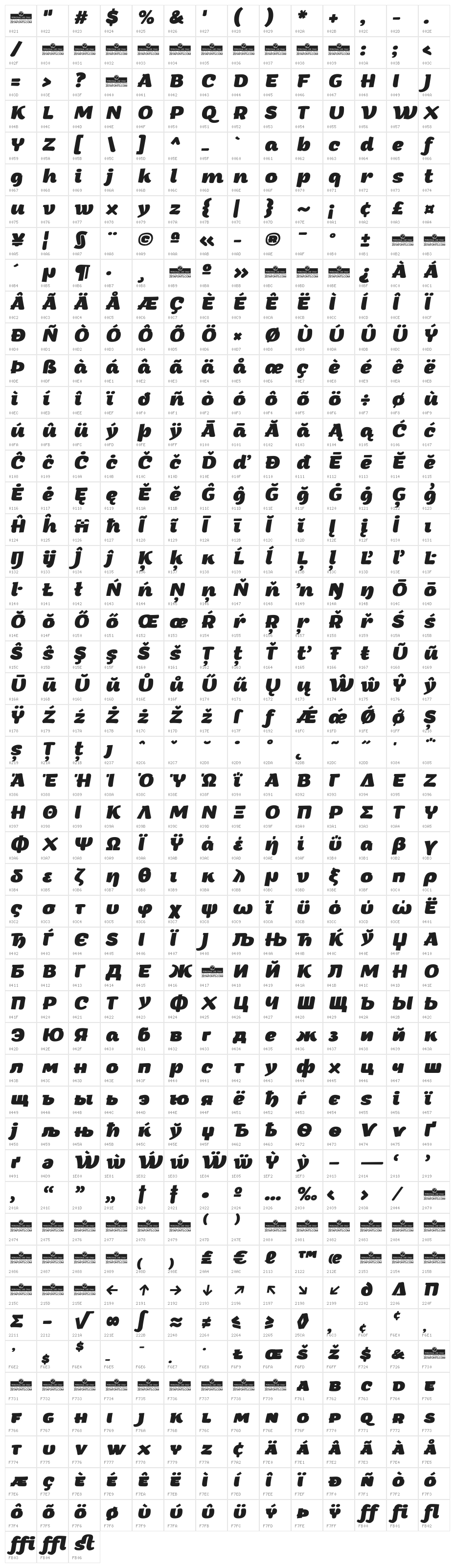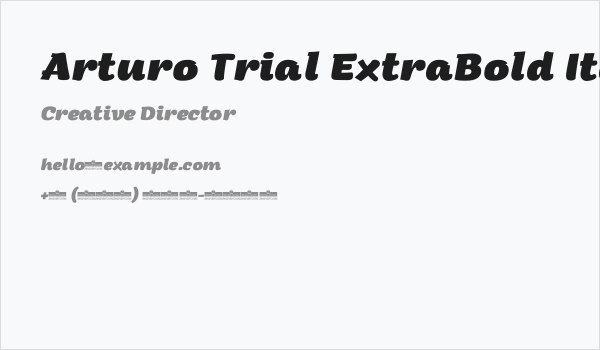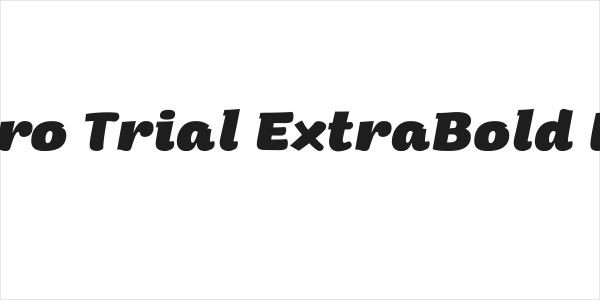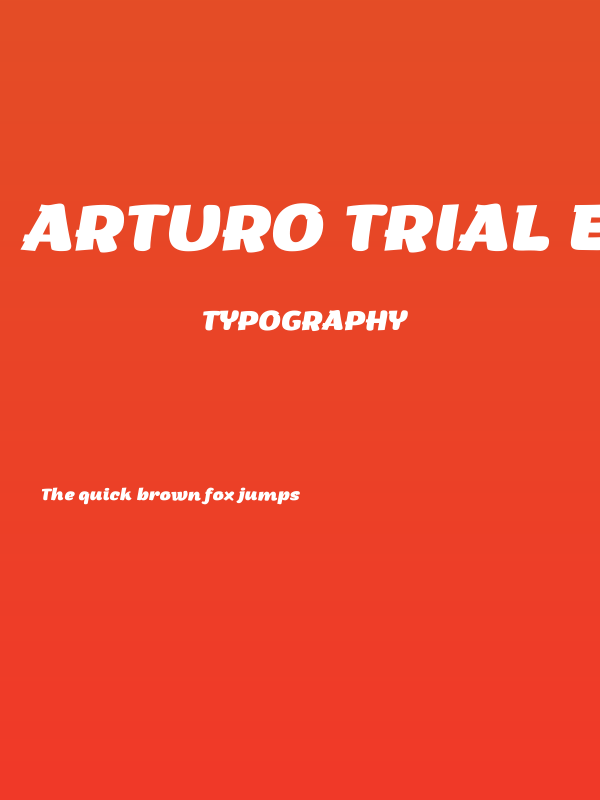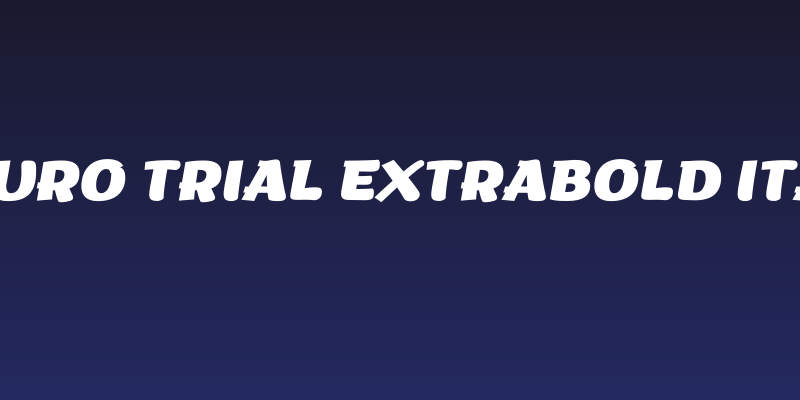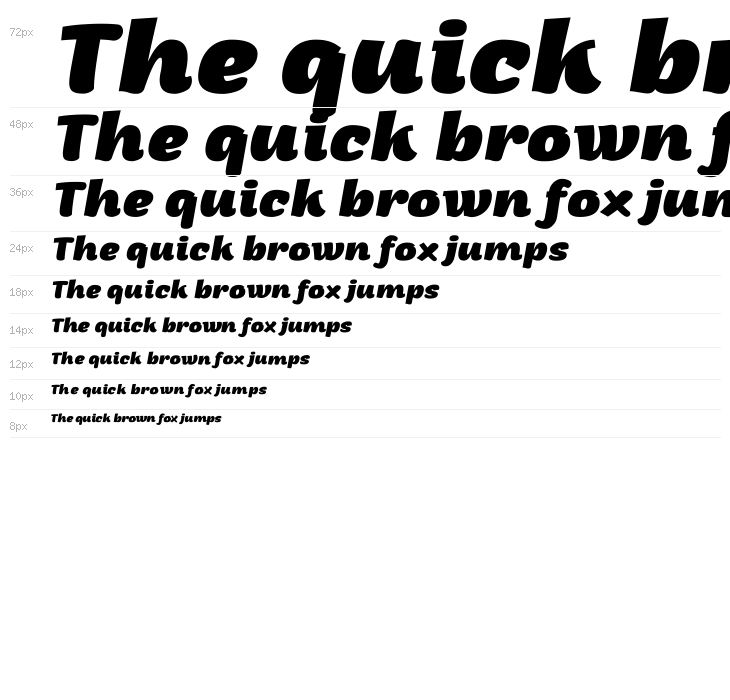
Arturo Trial ExtraBold Italic Font
Arturo Trial ExtraBold Italic Description
This font features a bold and dynamic style with a strong italic slant, giving it a sense of movement and energy. The characters are thick and rounded, providing a robust and friendly appearance. The uppercase letters are particularly striking, with a consistent weight that ensures readability. The lowercase letters maintain the same boldness, offering a cohesive look throughout. The numerals and special characters are equally bold, ensuring they stand out in any design. This font is ideal for making a statement, with its eye-catching presence and modern flair.
| Proposed Projects | Ideal for branding, headlines, posters, and any design needing a strong, modern impact. |